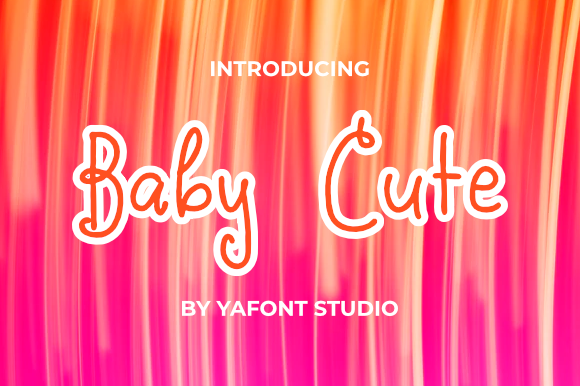
The Magic of Handwritten Fonts: Unleashing the Power of Baby Cute Font
Have you ever been browsing through a design inspiration board, and suddenly, a beautiful handwritten font catches your eye? The gentle curves, the playful strokes, and the sheer charm of it all – it’s like a breath of fresh air in the world of typography. For me, that moment happened when I stumbled upon the Baby Cute Font. Its unique charm and lovable feel instantly made me want to use it in my next design project.
Baby Cute Font is a lovely and timeless handwritten font that’s perfect for creating eye-catching logos, branding, and quotes. With every letter having a unique and beautiful touch, it’s the perfect choice for designers who want to add a personal and emotional touch to their work. Whether you’re a seasoned designer or a beginner, Baby Cute Font is a valuable addition to your toolkit, guaranteed to bring your designs to life.
- Unique Characteristics: The font’s distinctive baby-like features, such as rounded shapes and soft lines, make it ideal for creating a playful and endearing atmosphere in designs.
- Font Style: The font comes in a single style, which is perfect for creating a consistent and cohesive visual identity in branding, advertising, and other design projects.
Baby Cute Font Review
Overall, I think the Baby Cute Font has some great qualities that make it perfect for certain projects. ✨ The playful and whimsical design is sure to grab attention and add a touch of cuteness to any design. The font’s high x-height and rounded edges give it a soft, childlike feel that’s perfect for children’s products, nursery decor, or even greeting cards.
One of the things I appreciate most about this font is its versatility. ✨ It comes in a range of weights and styles, from light to bold, and even has some fun alternates and swashes that can add an extra layer of personality to your design. The font is also highly legible, making it a great choice for body text or headlines.
However, there are a few limitations to consider. ⚠️ The font may be a bit too sweet for more serious or formal projects, and some users may find the high x-height to be a bit too much. Additionally, the font’s weight and style options can be a bit overwhelming, making it difficult to choose the perfect combination for your design.
Here are some of the key pros and cons of the Baby Cute Font:
- ✨ Versatile design with a range of weights and styles
- ✨ Highly legible and easy to read
- ⚠️ May be too sweet or childish for some projects
- ⚠️ Weight and style options can be overwhelming
Tips for Getting the Most Out of Baby Cute Font
For the most effective use of Baby Cute Font, consider the following tips:
- Pair the font with pastel colors and soft textures for a cohesive look.
- Use Baby Cute Font for headings and titles to create visual hierarchy.
Baby Cute Font is commonly used for:
- Children’s products and packaging.
- Baby-related marketing materials.
- Whimsical and playful designs.